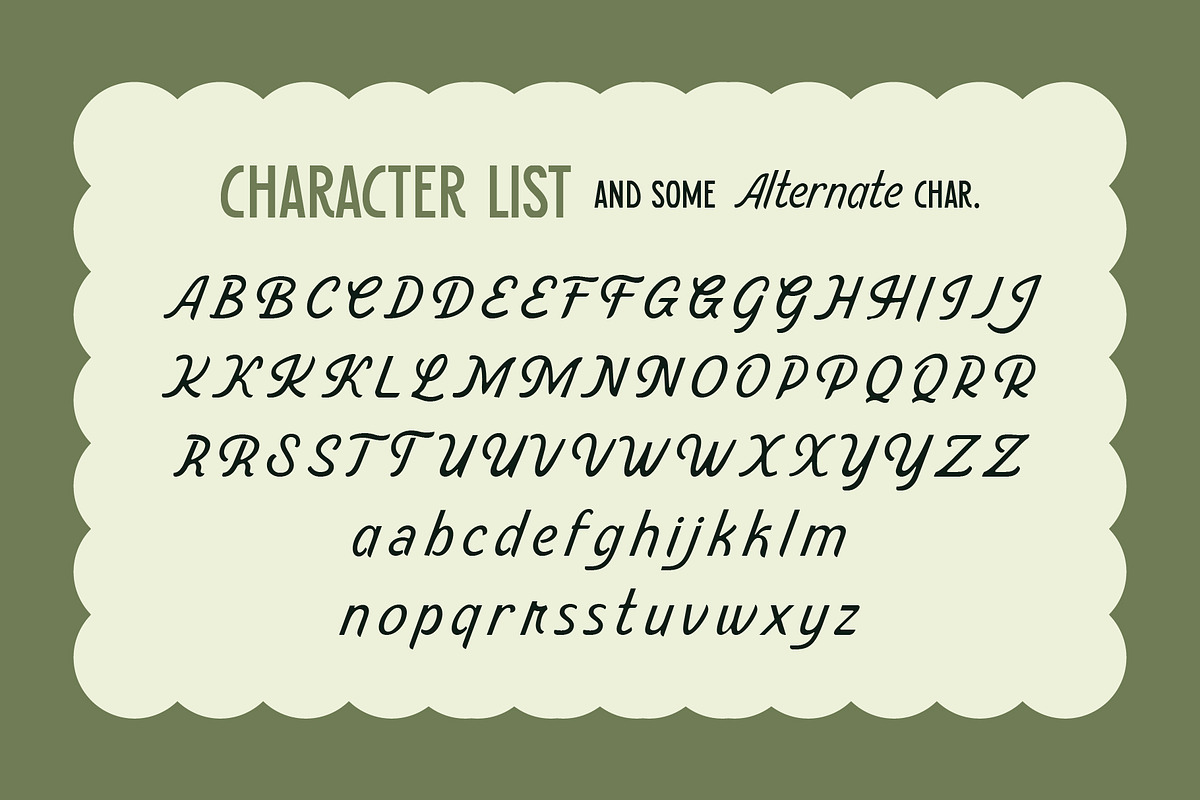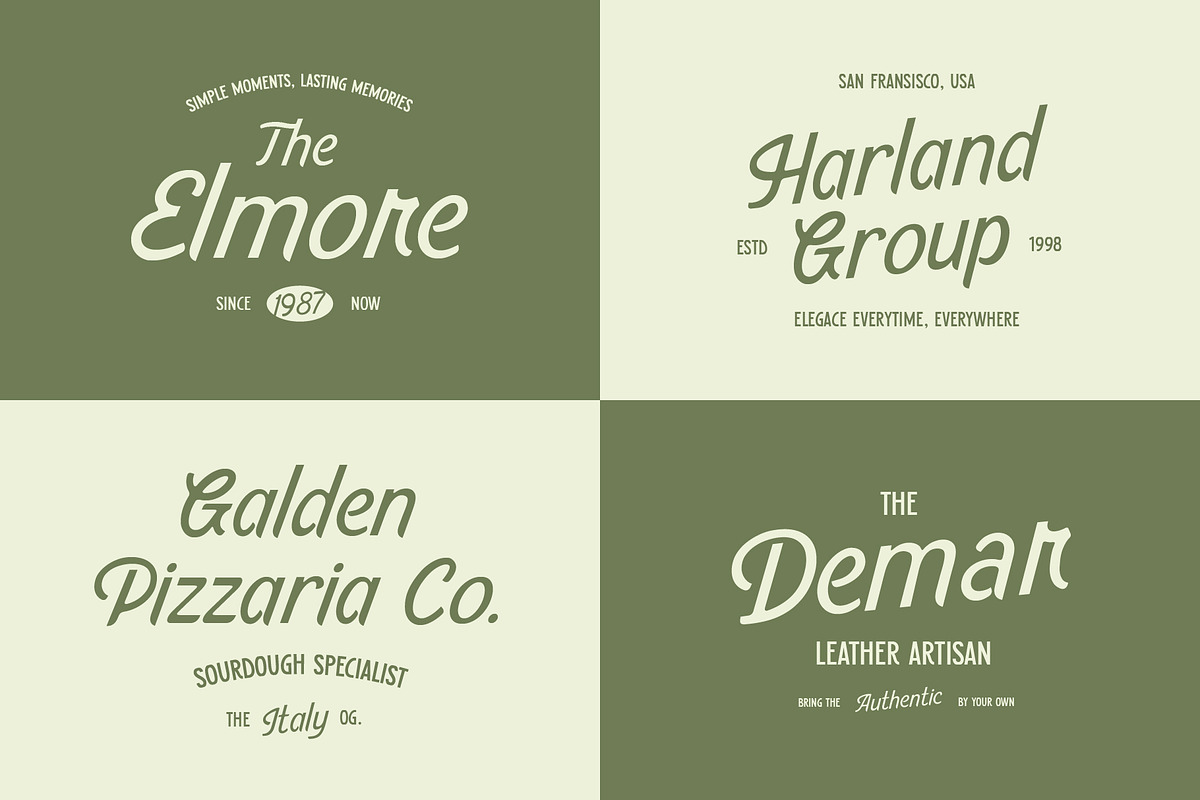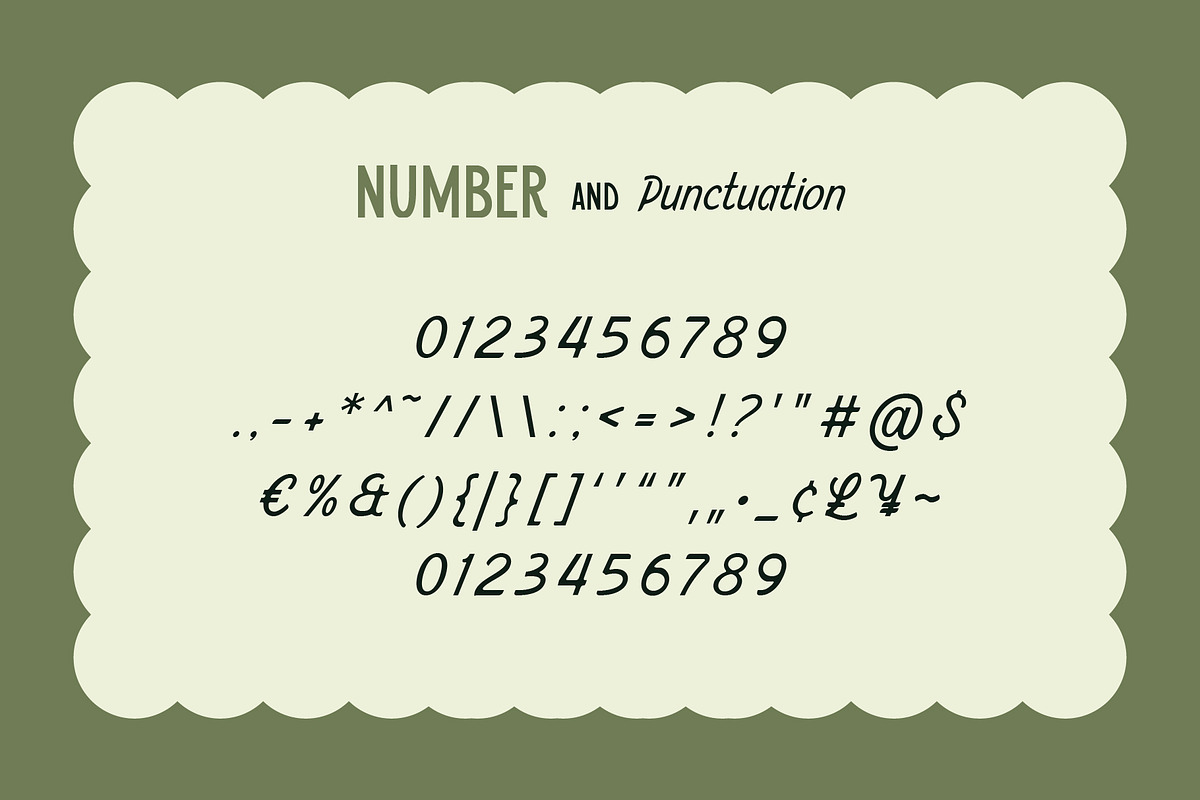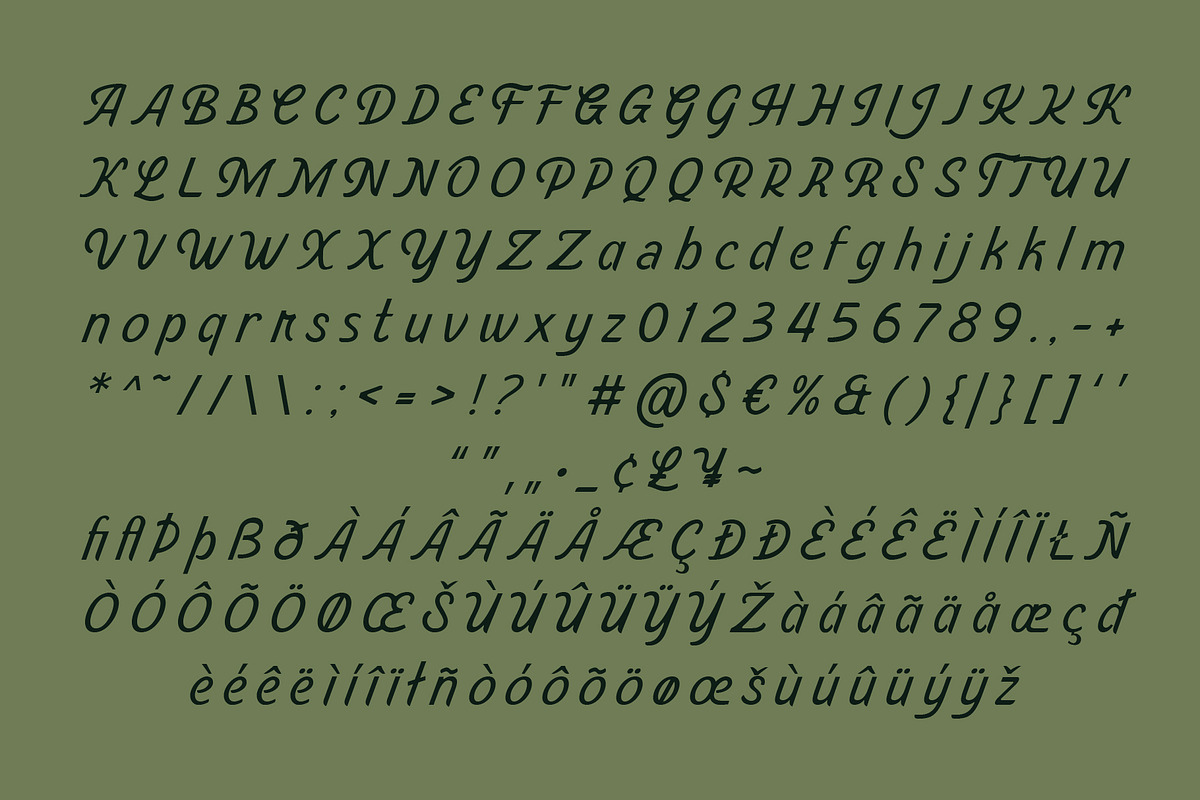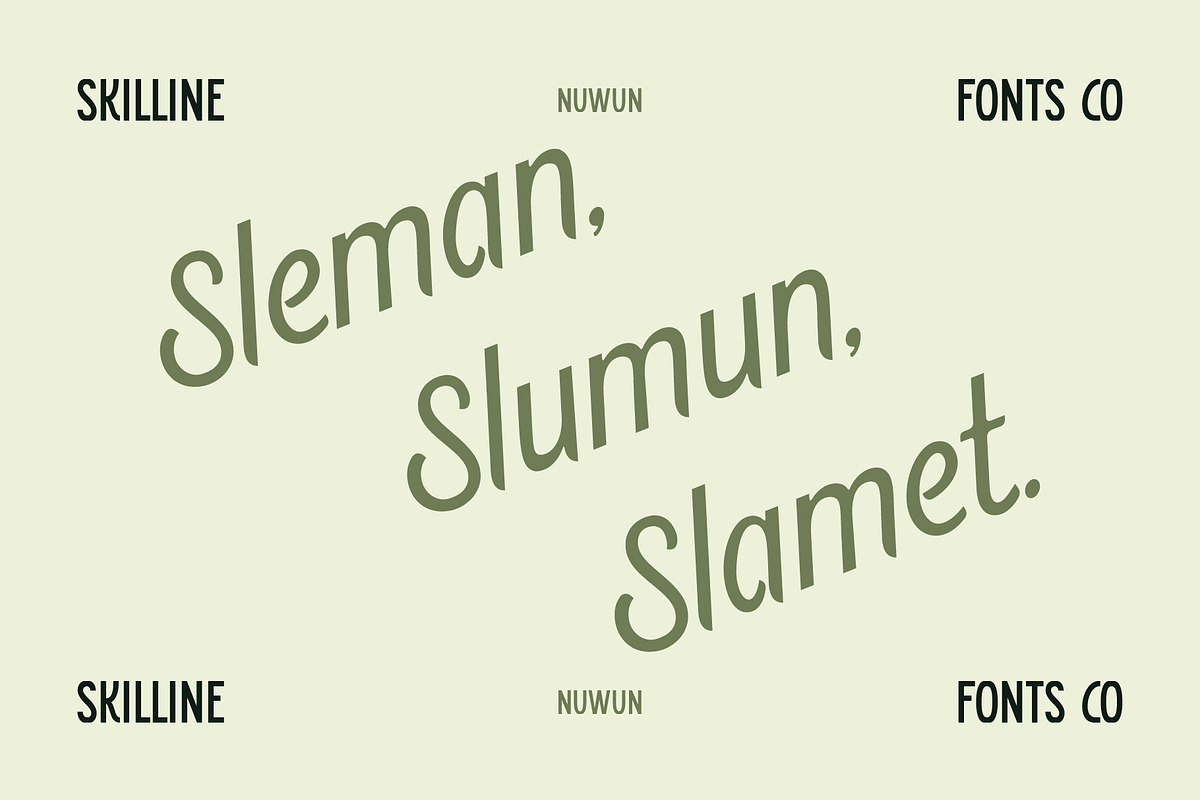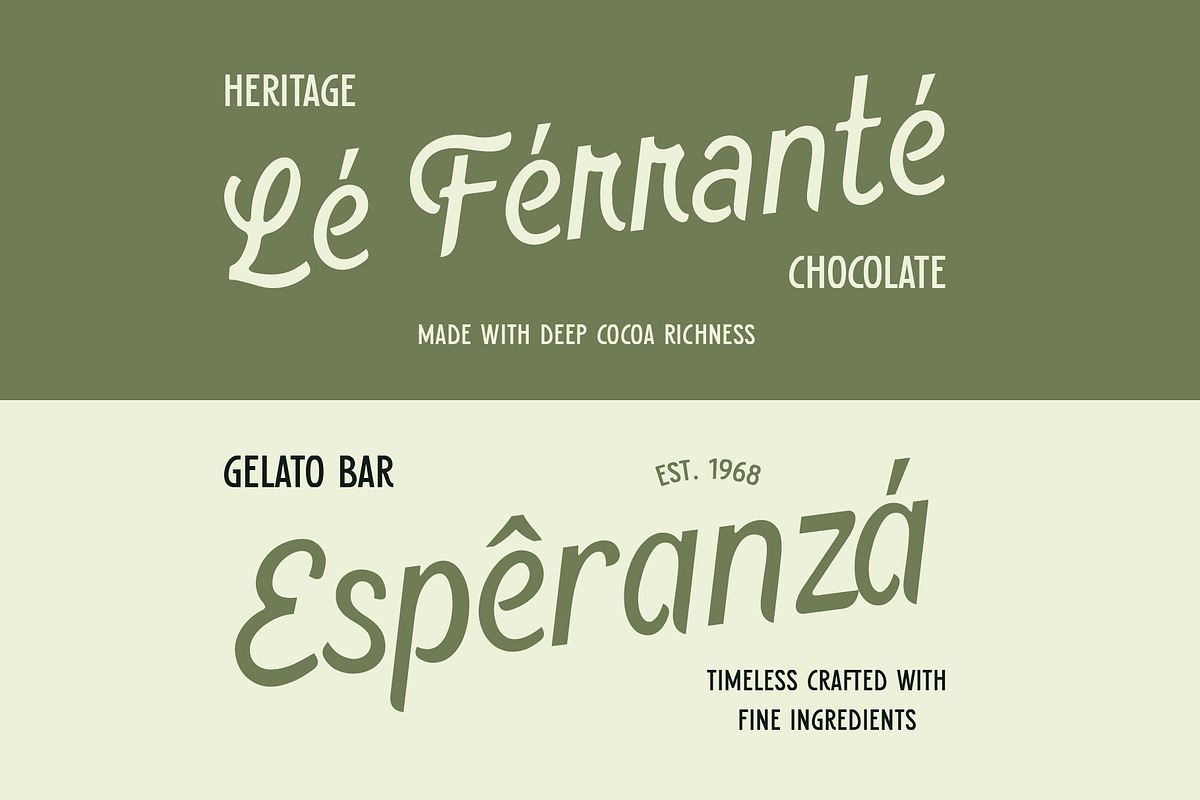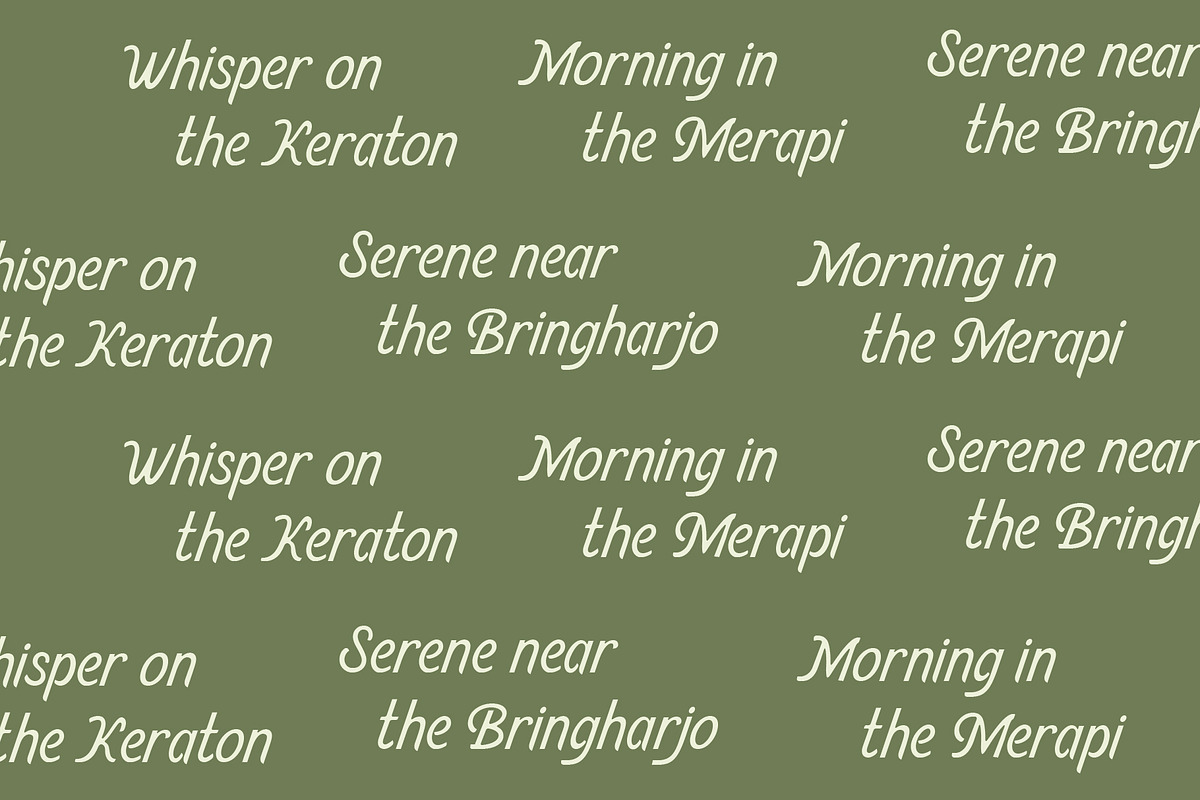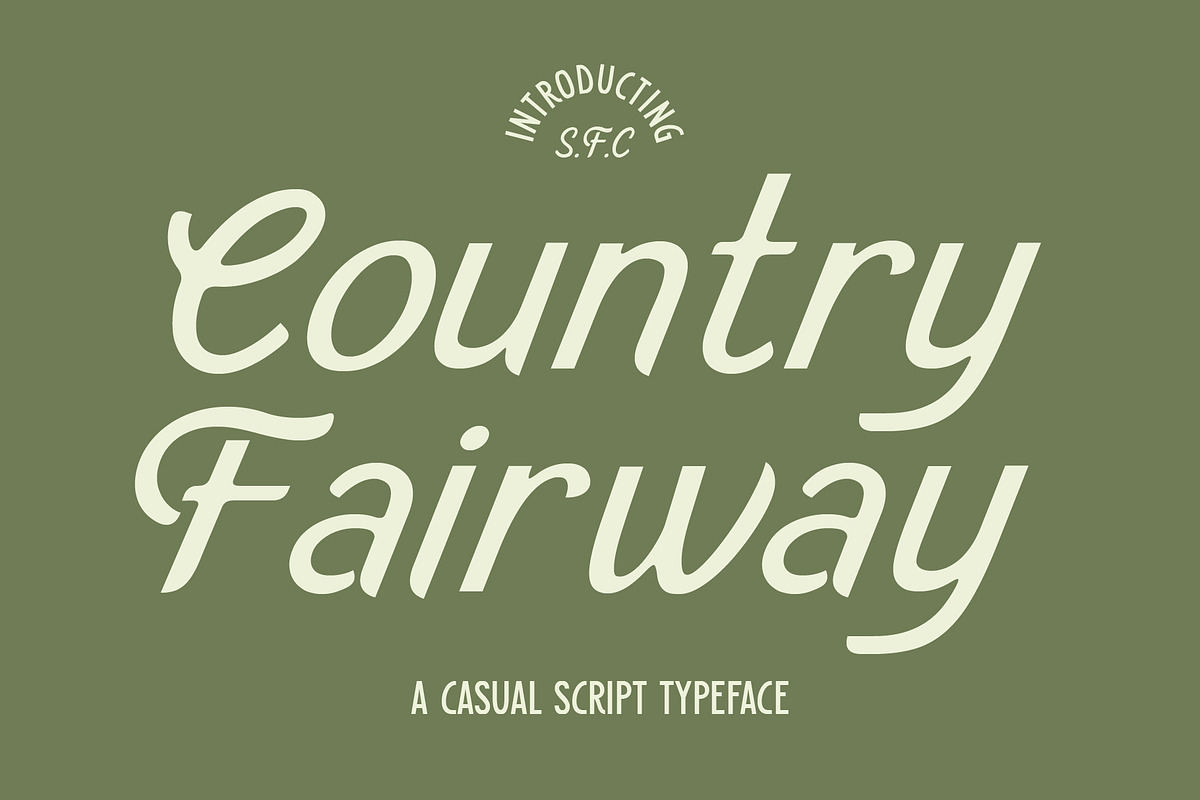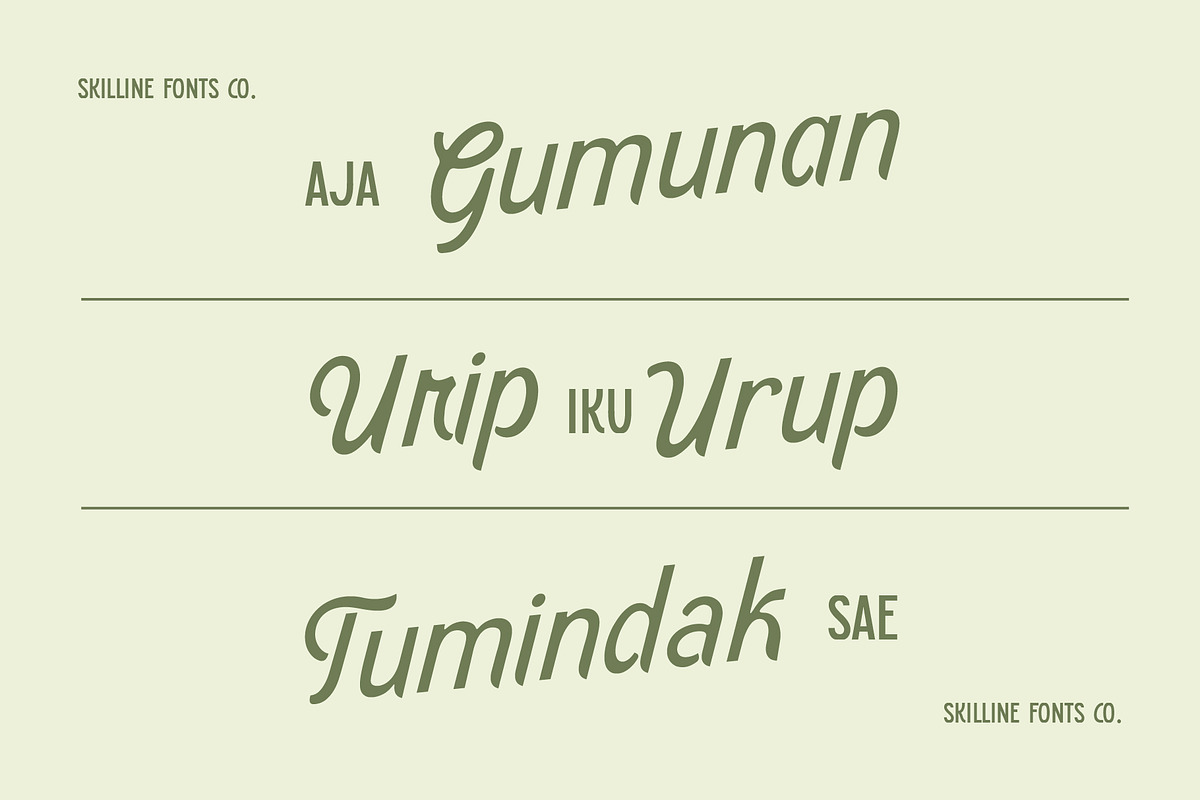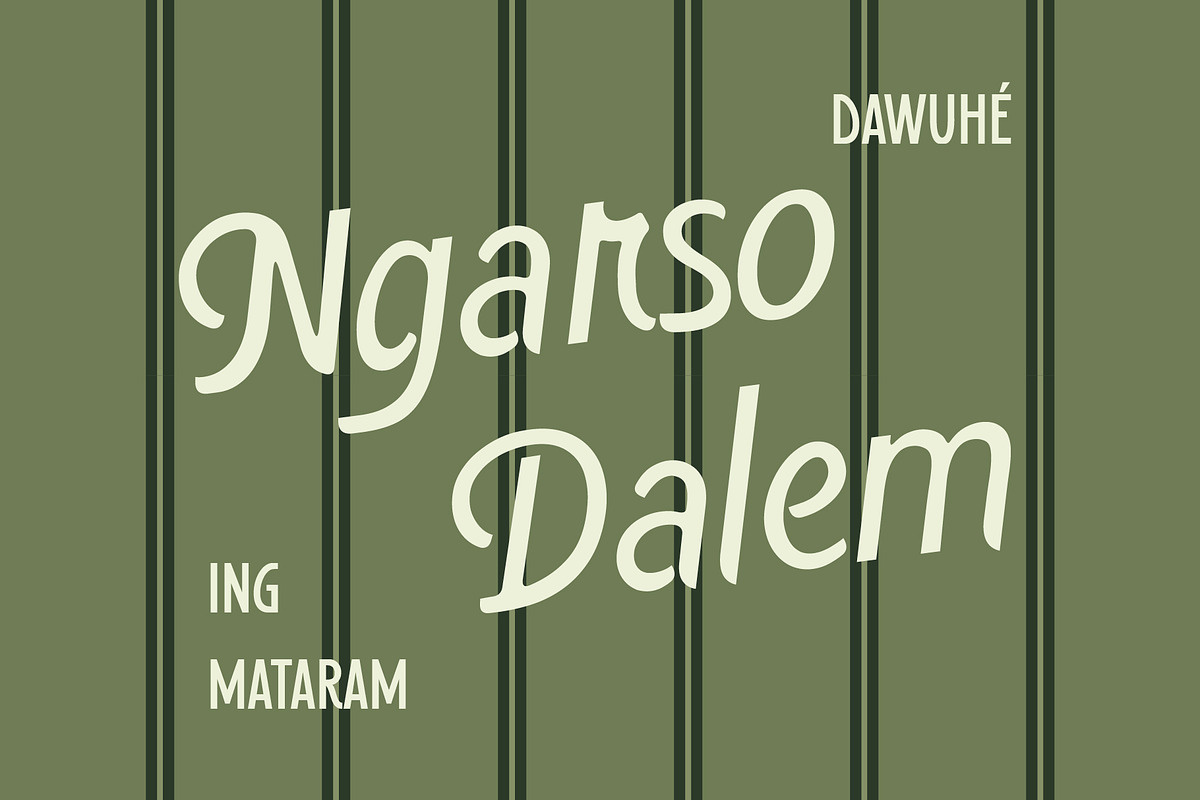
SFC Country Fairway
Country Fairway is a vintage-inspired script display typeface that blends classic heritage with refined modern clarity. Inspired by traditional lettering, timeless signage, and handcrafted typography, Country Fairway delivers smooth flowing strokes and balanced forms that feel elegant, confident, and enduring.
With its natural rhythm and carefully drawn curves, Country Fairway evokes a sense of craftsmanship often found in heritage brands, classic packaging, and premium lifestyle identities. Its character works seamlessly across applications, from editorial headlines and product labels to apparel graphics and refined sports branding, including golf clubs, country clubs, and leisure wear.
Designed to feel warm yet polished, Country Fairway brings a timeless atmosphere suited for brands that value tradition, quality, and understated elegance.
Ideal Applications for Country Fairway
Heritage & vintage branding systems
Packaging for food, beverage & premium goods
Café, restaurant & hospitality identity
Apparel, lifestyle & leisure merchandise
Editorial covers, posters & headline typography
Logo design, signage & classic sports branding
Script Display Typeface
Smooth flowing letterforms
Uppercase & lowercase characters
Alternate Characters
Numerals & punctuation